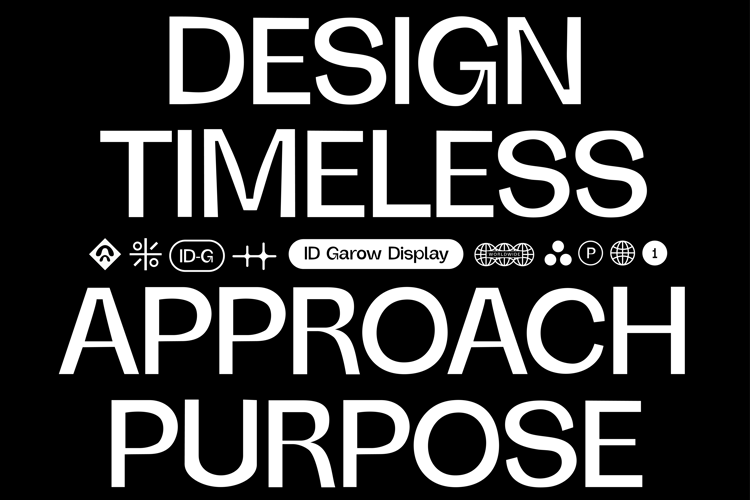
Ronamuda Font
ID Garow Display is a modern grotesk-style display typeface focused on clarity, strength, and simplicity. Clean structure, balanced proportions, and a minimal character make this font perfect for headlines, branding, editorial layouts, and contemporary designs that require a sharp and refined look.